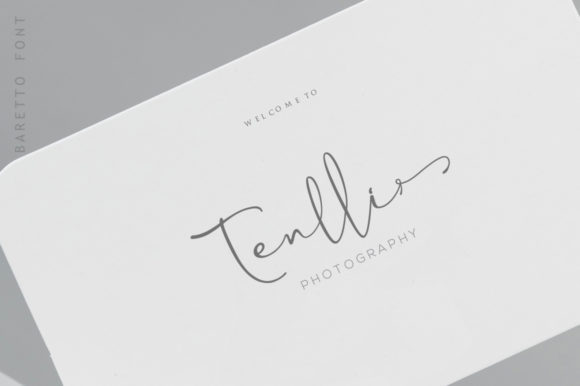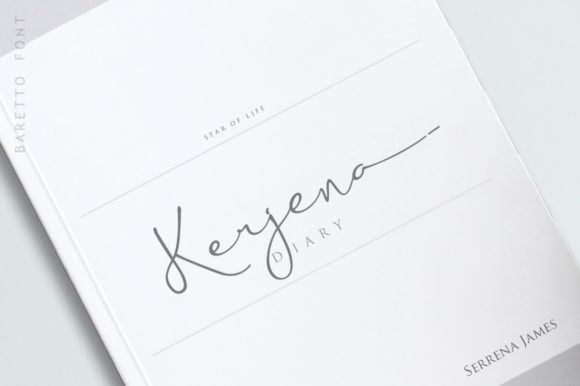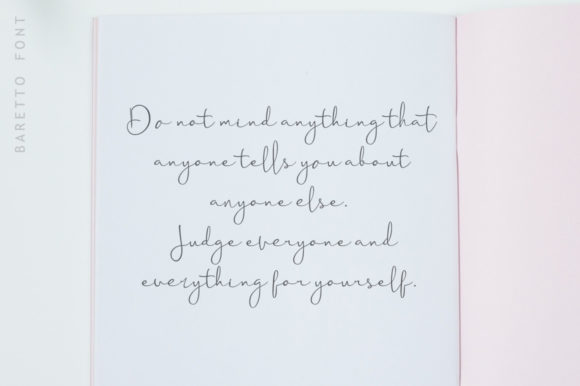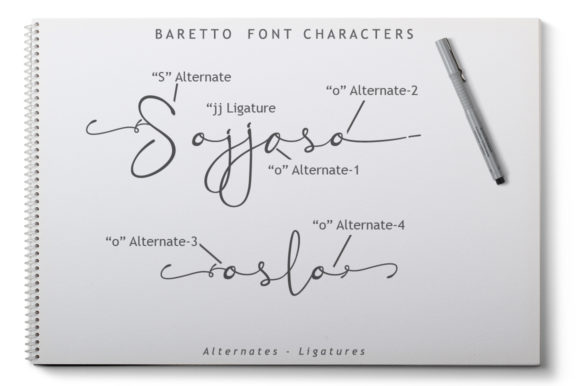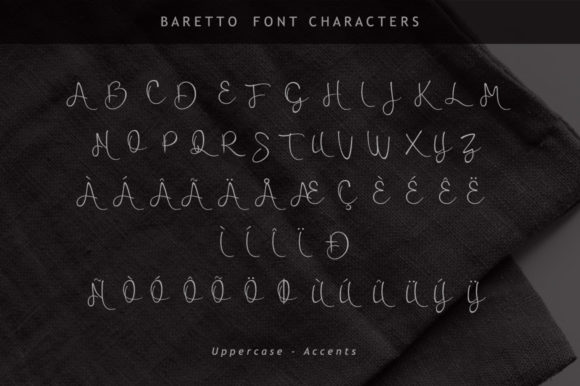
Introduction to Baretto Font
The Baretto is a beautiful smooth handwritten script.
It has an amazing handwritten feel and is absolutely suited for any display or text use It’s perfect for branding, quotes, logos, wedding invites, product packaging, headers, cards and much more.
Key Features of Baretto Font
Why Choose Baretto Font?
Baretto Font offers exceptional quality and versatility, making it a valuable addition to your design toolkit. Whether you’re creating for personal projects or commercial use, Baretto Font delivers professional results.